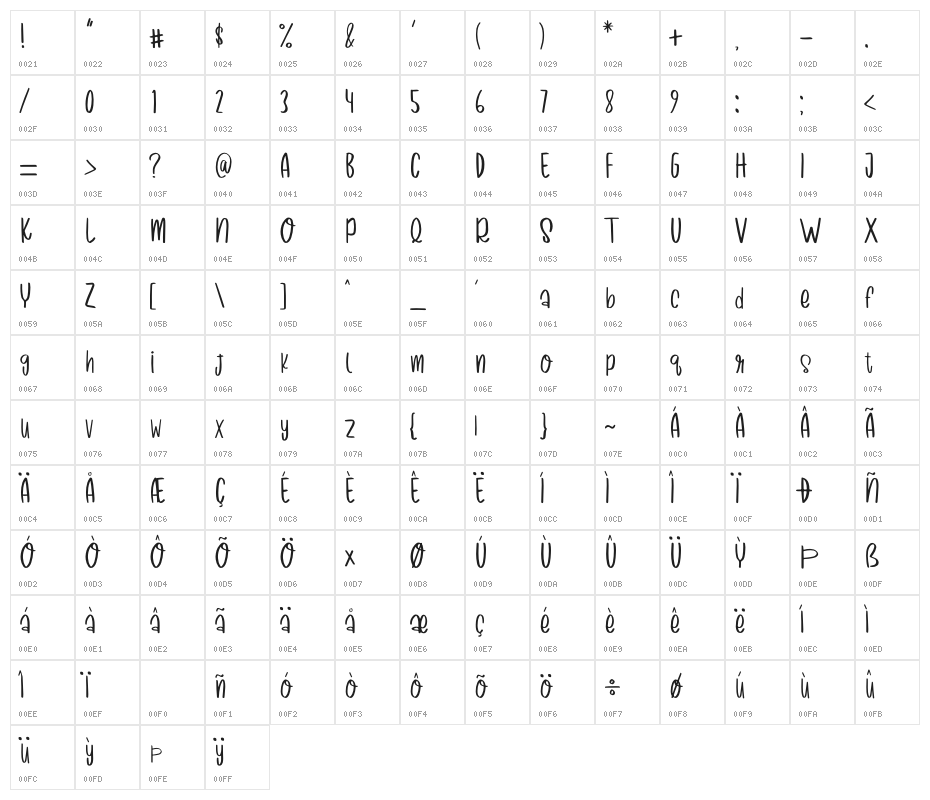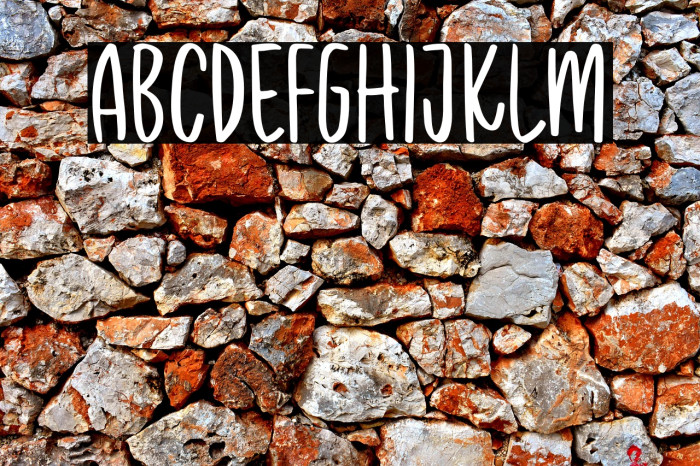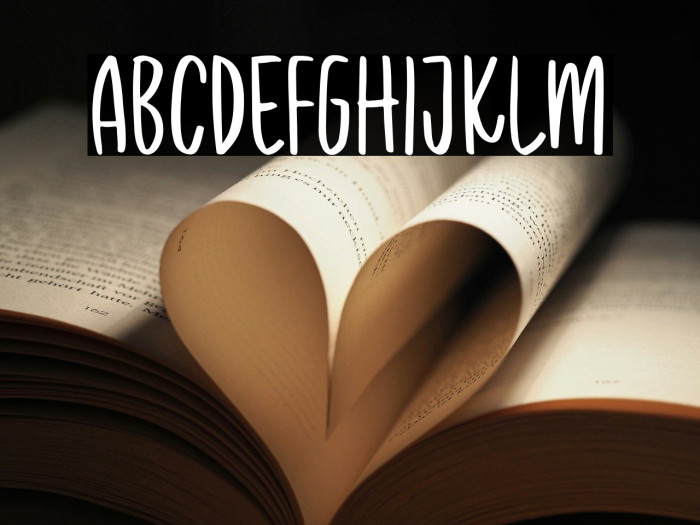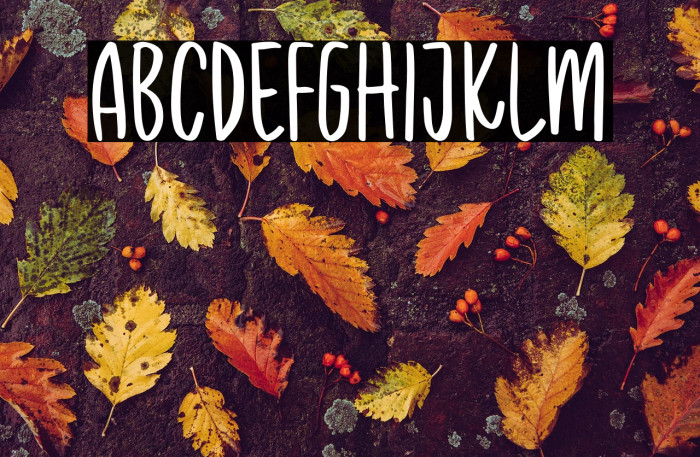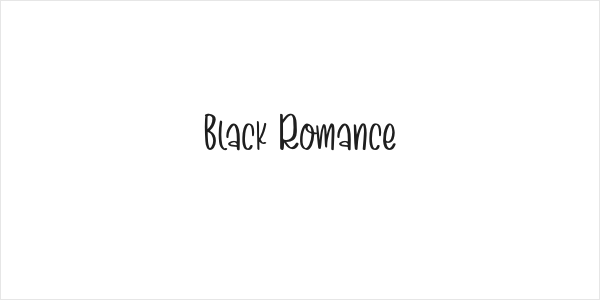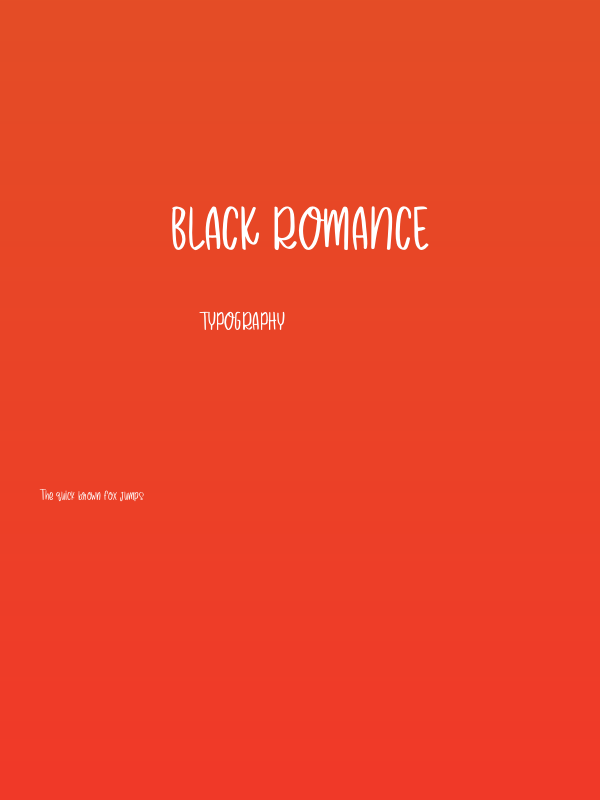
Black Romance Font
Black Romance Description
This font features a playful and casual handwritten style, characterized by its smooth, flowing curves and slightly irregular strokes. The uppercase and lowercase letters maintain a consistent height, creating a harmonious appearance. The numbers and special characters are designed to match the overall aesthetic, adding to the font's cohesive look. The strokes are moderately thick, providing good readability while retaining a friendly and approachable feel. This font is versatile, suitable for a variety of creative projects where a personal touch is desired.
| Use Case | Logos, Headlines, Informal Text |
| Proposed Projects | Ideal for greeting cards, invitations, personal branding, and social media graphics. |